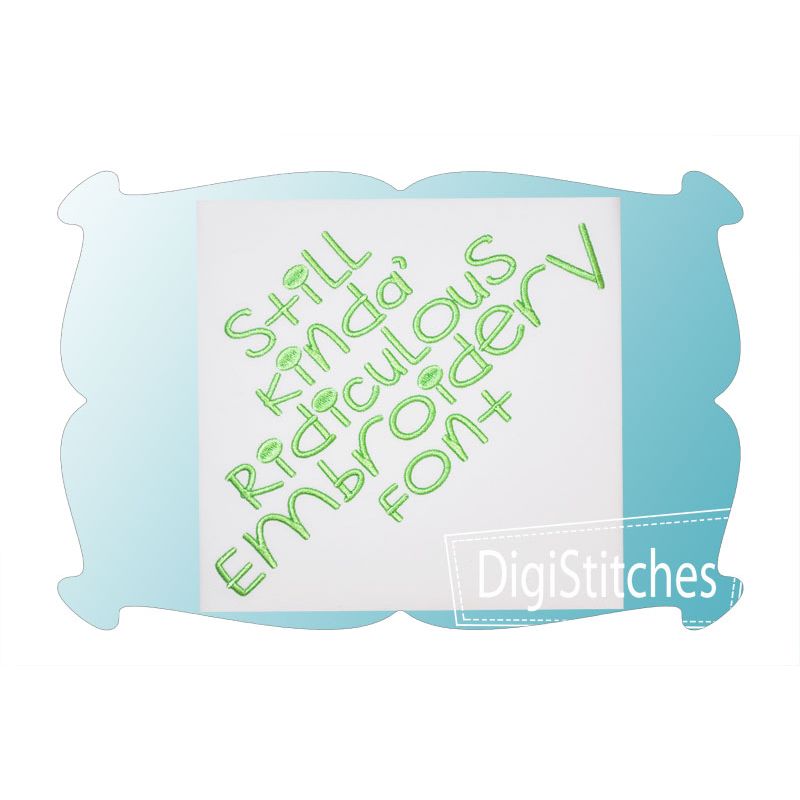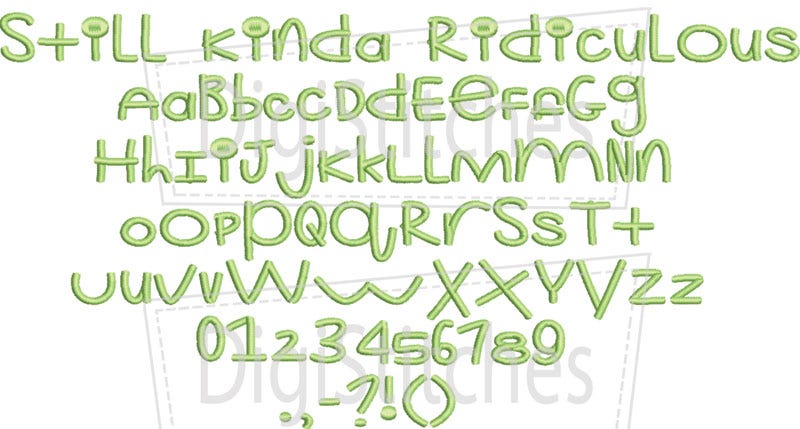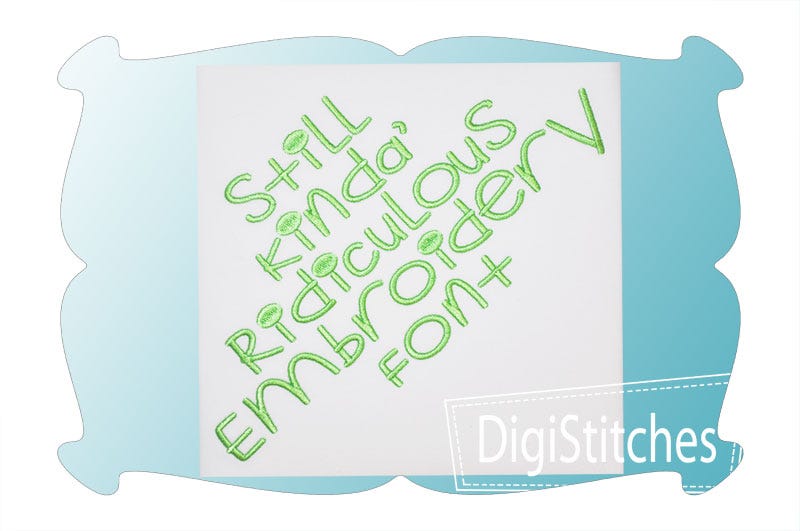
Still Kinda Ridiculous Satin Stitch Embroidery Font
Still Kinda Ridiculous Embroidery Font
Still Kinda Ridiculous embroidery font features super bold letters that really stand out on t-shirts and projects.
This super wonky font offers a fun look and is great choice for both boys and girls!